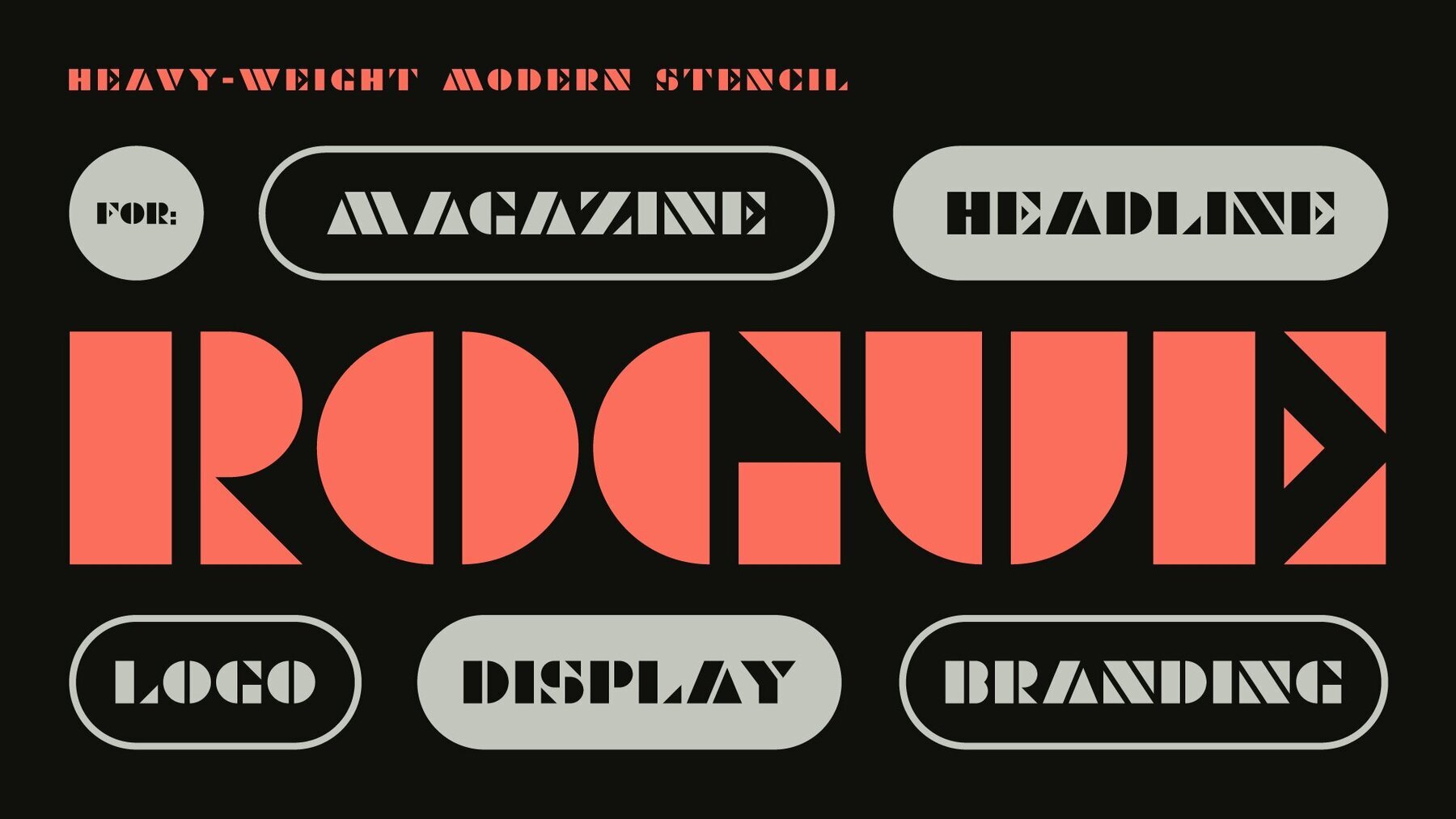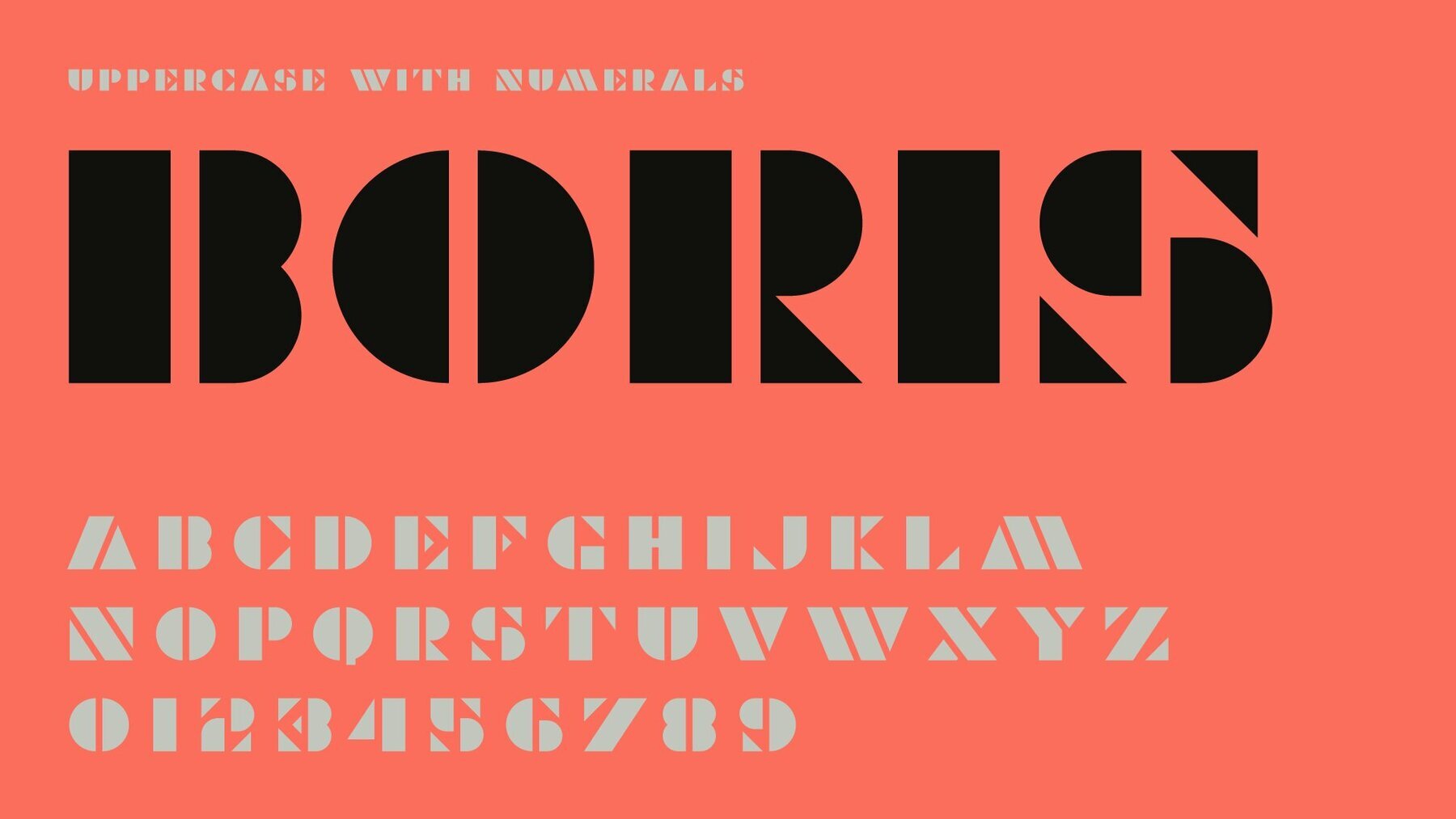
Rogue Font
ATF Rogue
Rogue distinguishes itself with a modern stencil architecture, merging sharp clarity and understated elegance. Its carefully considered geometry and intentional cuts evoke a refined sensibility, lending visual depth to display work. The font’s balance of precision and classic cues makes it a natural fit for creative professionals seeking distinctive typographic choices. Rogue adapts seamlessly to branding, editorial headlines, and visual identities that prioritize sophistication. Its design supports both contemporary and heritage-inspired projects, making it a valuable asset for designers who appreciate stylish restraint and versatility.Rogue: Modern Stencil Font With Vintage Nuance